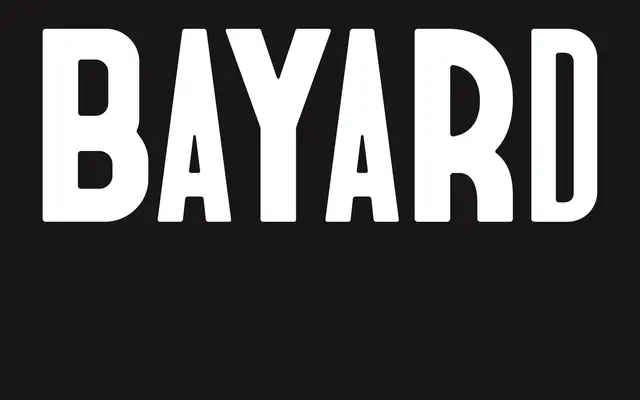
A sans-serif drawn from protest signs at the 1963 March on Washington for Jobs and Freedom, named after organiser Bayard Rustin.
Vocal Type's Bayard takes its letterforms directly from signage carried during the 1963 March on Washington, one of the defining moments of the American civil rights movement. The typeface is named after Bayard Rustin, the march's deputy director and a principal architect of nonviolent protest strategy, who also guided the event's organisation in under two months despite internal opposition. It sits in a body of work from Vocal Type that grounds typeface design in specific Black historical narratives rather than generic Americana.
Categorised as sans-serif with a display orientation, drawn from hand-lettered protest signage from the 1963 March on Washington rather than any conventional type tradition.